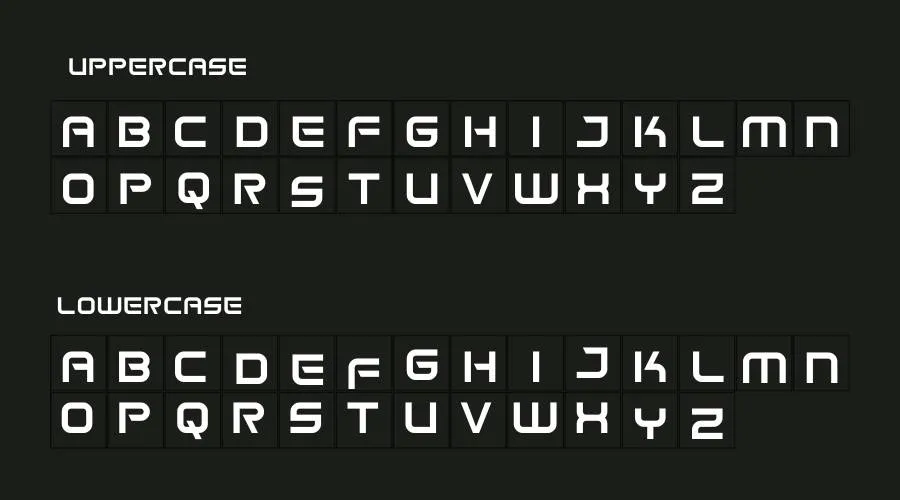
About Space Frigate Font
Space Frigate Font is designed by dustBUST it belongs to the techno typeface category. This font family comes with all the exclamation points and hyphen letters needed to create a beautiful design when used with the other font. It is also obtainable in both uppercase and lowercase characters.